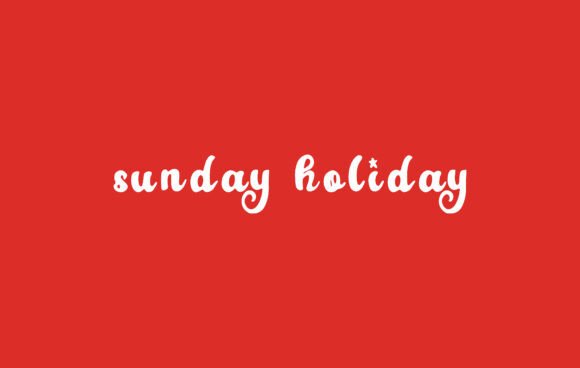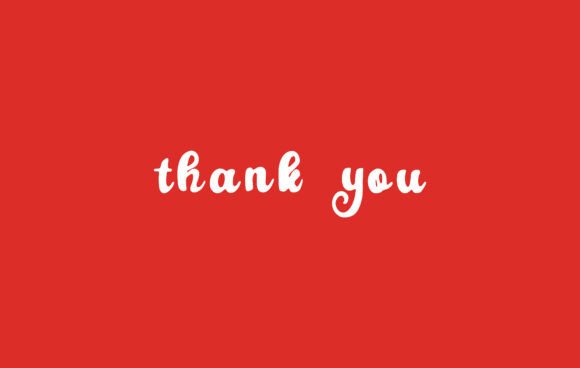
Introduction to Owen Font
Have you ever stumbled upon a font that perfectly captures the essence of your creative vision? For designers, finding the right font can be a game-changer, elevating a project from ordinary to extraordinary. It was one such moment that led me to discover the Owen Font – a beautiful, authentic handwritten font with a romantic touch.
With its high-quality design, Owen Font has quickly become a favorite among designers, offering endless possibilities for creative projects. Whether you’re working on a magazine headline, social media campaign, or branding strategy, this font is sure to impress. And the best part? It’s a valuable design resource that’s available for free download, complete with a transparent background, making it easy to integrate into your design workflow.
As a design enthusiast, I’m excited to share my experience with Owen Font and explore its many applications, from wedding invitations to cards and more. In this article, we’ll delve into the world of Owen Font and discover why it’s a must-have for any designer looking to take their creative ideas to the next level.
Key Features of Owen Font
- High-quality vector font, ideal for creative projects requiring a sophisticated design resource.
- Unique, modern design with a transparent background, allowing for easy layering and customization in graphic design projects.
- Resolution-independent design, ensuring crisp and clear text rendering at any display resolution.
- Supports a wide range of languages, making it a versatile design resource for international projects.
- Perfect for use in logos, branding materials, and other visual identity elements, thanks to its elegant and sophisticated aesthetic.
Honest Review: Owen Font
I recently stumbled upon Owen Font while searching for a free design resource to enhance a creative project. As a designer, I was impressed by the high quality of this font. It’s perfect for adding a touch of sophistication to your design.
- ✨ Elegant and modern design style
- ✨ Supports a wide range of languages
- ✨ Includes a transparent background for seamless integration
- ⚠️ Limited character set for some languages
- ⚠️ Not ideal for use in small text sizes
Overall, I’m quite pleased with Owen Font. It’s a valuable addition to any designer’s toolkit, especially for those working on creative projects that require a touch of elegance. While it may not be perfect, its strengths far outweigh its weaknesses, making it a worthwhile design resource to have in your arsenal.
Owen Font
The Owen Font is a high-quality design resource perfect for creative projects. With its sleek and modern design, this font is ideal for designers looking for a unique and versatile typography solution.
Tips for Getting the Most Out of Owen Font
For the best results, use Owen Font with a transparent background to create a seamless and professional design.
Owen Font is perfect for:
- Logo design and branding
- Infographics and presentations
Alternatives to Owen Font
Great Vibes is a high-quality, cursive script font ideal for creative projects that require a touch of elegance. It’s available for free download and features a transparent background, making it perfect for graphic designers and digital artists. Great Vibes is a great alternative to Owen Font for projects that require a more refined and sophisticated look.
Pacifico is a beautiful, high-quality serif font that’s perfect for creative projects that require a touch of sophistication. It’s available for free download and features a transparent background, making it ideal for graphic designers and digital artists. Pacifico is a great alternative to Owen Font for projects that require a more formal and elegant look.